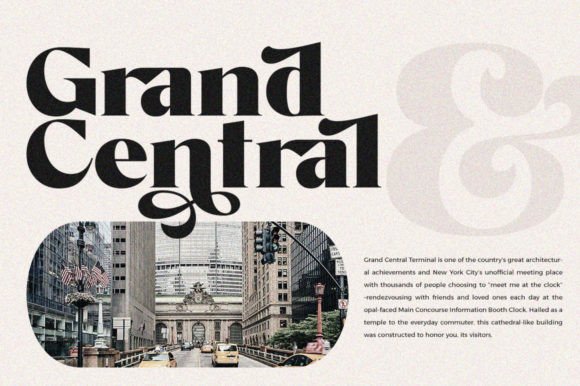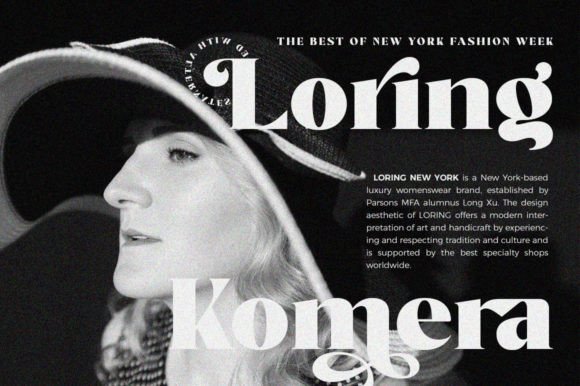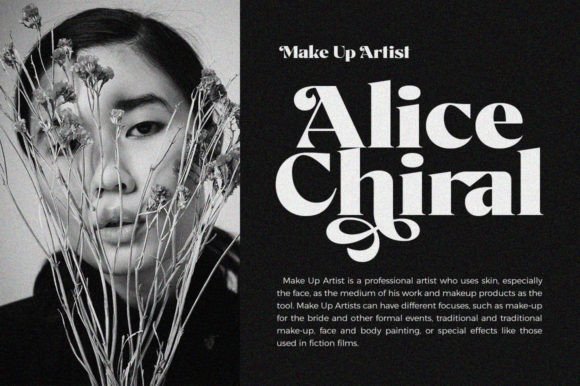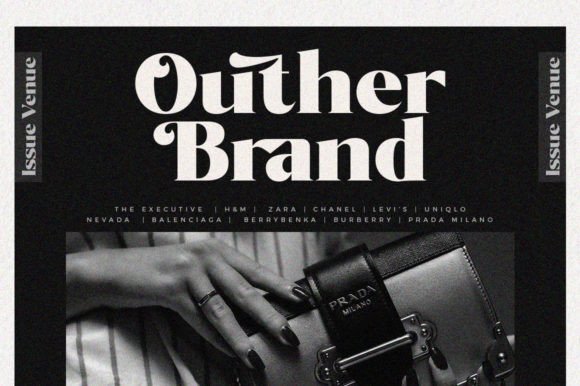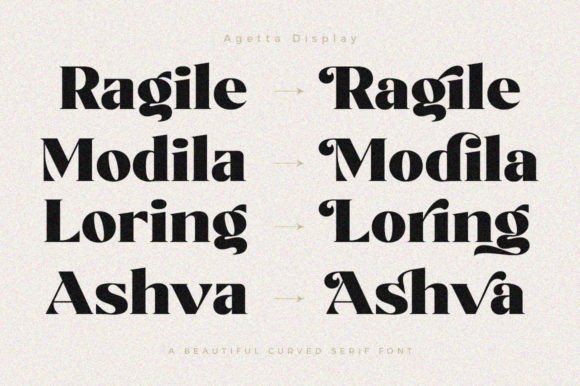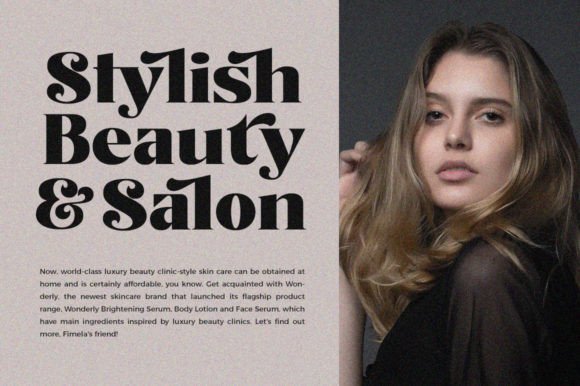
Agetta Display Font: Elevate Your Designs with Elegance and Personality
In the world of typography, a font can make or break a design. Agetta Display Font is a bold, vintage-style serif font that brings a strong personality to the table. Its elegant and refined character makes it suitable for a wide spectrum of applications, from luxury branding to elegant stationery. In this article, we’ll dive into the world of Agetta Display Font, exploring its features, benefits, and uses.
A Bold and Elegant Font
Agetta Display Font boasts a bold and elegant design, perfect for making a statement. Its vintage-style serif font is reminiscent of classic typography, yet its refined character ensures it remains modern and sophisticated. The font’s strong personality shines through in its confident lines and precise curves, making it ideal for designers looking to add a touch of luxury to their work.
One of the standout features of Agetta Display Font is its PUA (Private Use Area) encoding. This means that you can access all the glyphs and ligatures with ease, giving you complete creative control over your typography. With PUA encoding, you can effortlessly switch between different characters, creating beautiful and intricate designs that showcase your craftsmanship.
A Wide Range of Applications
Agetta Display Font is incredibly versatile, making it suitable for a wide range of applications. Here are just a few examples:
- Luxury Branding: Agetta Display Font’s elegant and refined character makes it perfect for luxury brands looking to create a sophisticated image.
- Elegant Stationery: Add a touch of class to your stationery with Agetta Display Font, ideal for wedding invitations, business cards, and more.
- Packaging Design: Make your packaging stand out with Agetta Display Font’s bold and eye-catching design.
- Advertising: Use Agetta Display Font to create striking advertisements that grab attention and leave a lasting impression.
Why Choose Agetta Display Font?
With so many fonts available, why choose Agetta Display Font? Here are just a few reasons:
- Unique Character: Agetta Display Font has a unique and distinctive character that sets it apart from other fonts.
- Elegant and Refined: Its elegant and refined design makes it perfect for luxury brands and sophisticated designs.
- PUA Encoded: Easy access to glyphs and ligatures means you can create intricate and beautiful designs.
- Versatile: Suitable for a wide range of applications, from branding to packaging design.
Agetta Display Font is a bold and elegant font that brings a strong personality to the table. Its vintage-style serif design and refined character make it suitable for a wide range of applications, from luxury branding to elegant stationery. With PUA encoding, you can access all the glyphs and ligatures with ease, giving you complete creative control over your typography. Whether you’re a designer, crafter, or simply a typography enthusiast, Agetta Display Font is a must-have addition to your font collection.